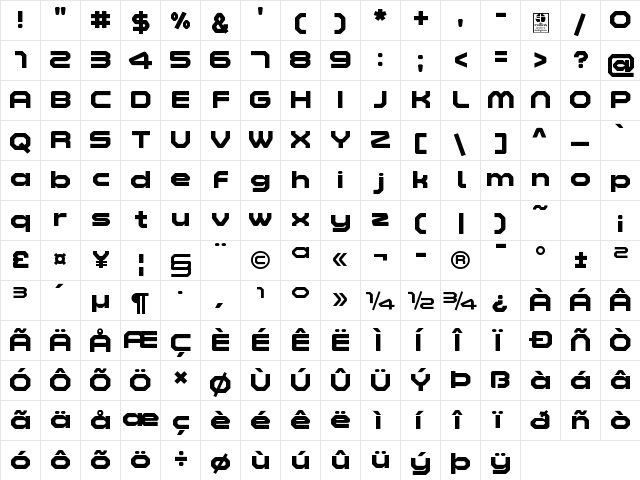
Zelta-Six Demo Bold
| Foundry | StudioTypo |
| Designer | Mehmet Abac |
Design Context for Zelta-Six Demo Typeface
Zelta-Six Demo is a composed and adaptable typeface that performs quietly and consistently across a wide range of design contexts. Its bold stroke weight gives it real presence on the page.